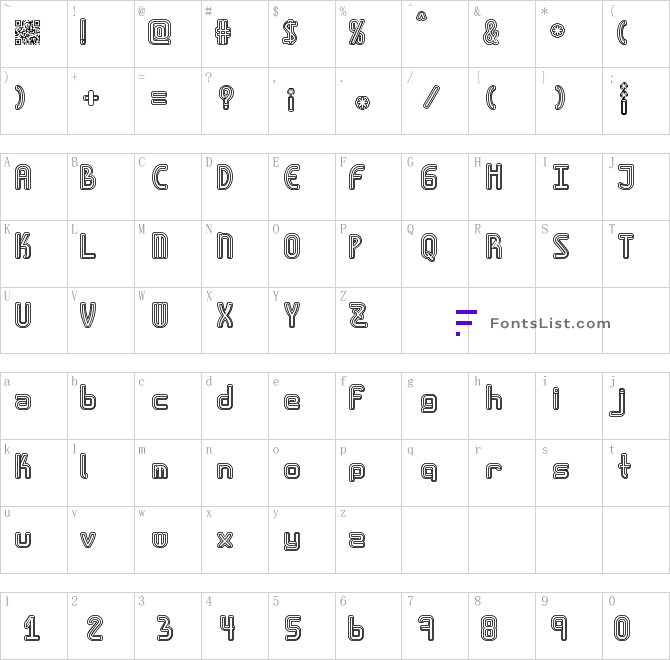
- Font Name:AmplitudesDoubleStroke
- Full Name:AmplitudesDoubleStroke
AmplitudesDoubleStroke.ttf is a very beautiful artistic font, AmplitudesDoubleStroke.ttf is widely used in the design and printing of various books and pictures,AmplitudesDoubleStroke.ttf has a strong visual impact,AmplitudesDoubleStroke.ttf is a commonly used font in newspapers, magazines and books, and is used in posters, e-commerce Poster design, store design, logo design, font design and other fields.AmplitudesDoubleStroke.